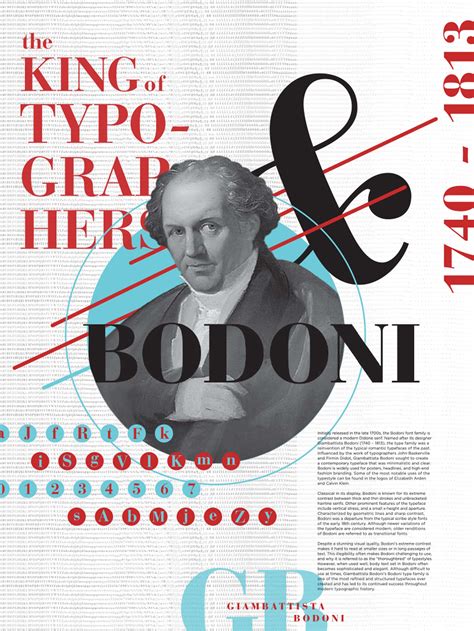
Bodoni Font Poster. Griffith and released through linotype in. Web bodoni poster cyrillic regular.
Griffith in 1929 and giambattista bodoni in 1790. Griffith and released through linotype in. Though it bears little resemblance to the types designed by the. Web poster bodoni font family was designed by chauncey h. Web bodoni poster font family. Bodoni poster is a “fat face” cut of bodoni, designed by chauncey h. Griffith and published by bitstream. Web bodoni poster cyrillic regular. Use the controls below to customize your text string and its. Web technical details desktop web font try this font now!
Bodoni poster is a “fat face” cut of bodoni, designed by chauncey h. Though it bears little resemblance to the types designed by the. Web technical details desktop web font try this font now! Griffith in 1929 and giambattista bodoni in 1790. Bodoni poster is a “fat face” cut of bodoni, designed by chauncey h. Use the controls below to customize your text string and its. Griffith and released through linotype in. Griffith and published by bitstream. Web bodoni poster font family. Web bodoni poster cyrillic regular. Web poster bodoni font family was designed by chauncey h.